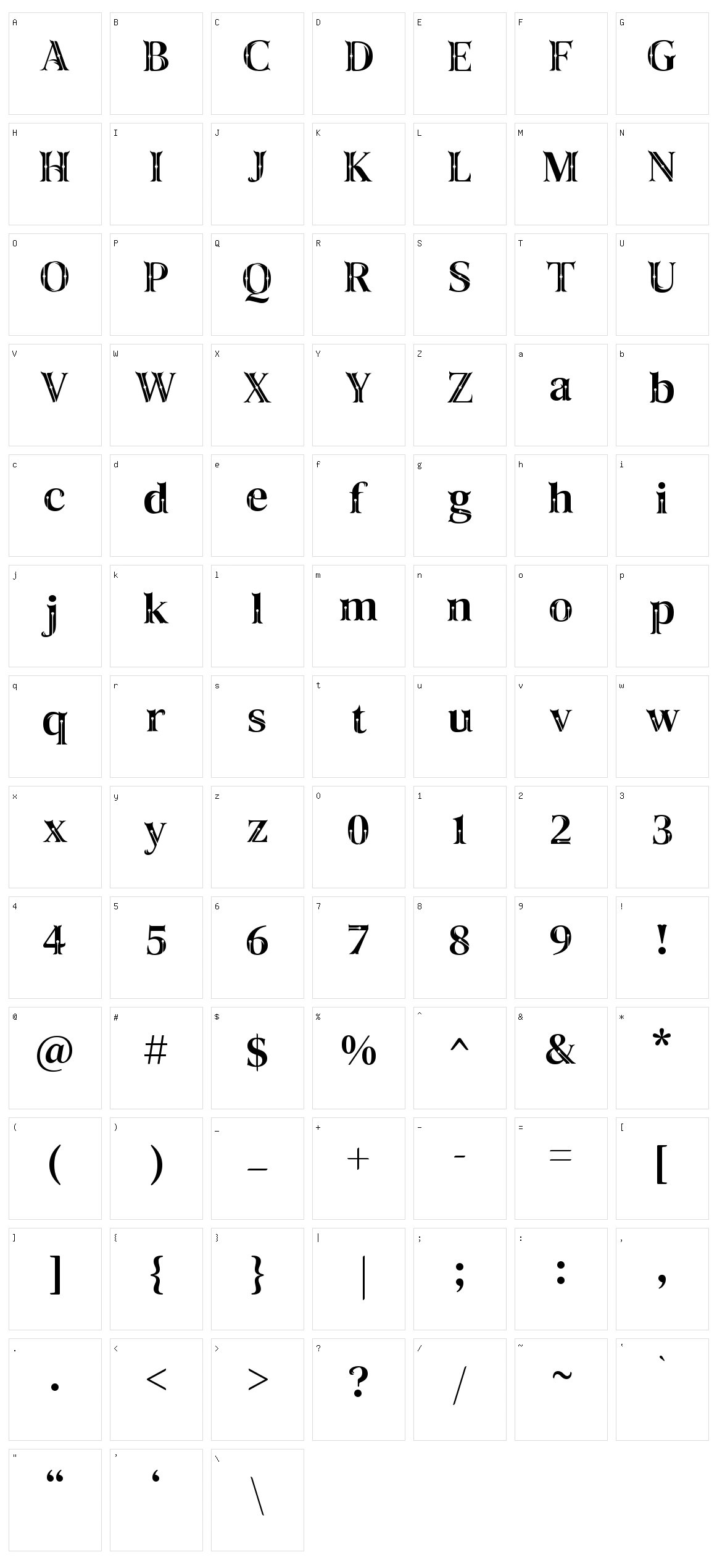
The free font Taiganja Type is carefully designed by Hardi Nugraha Tunggele, showcasing a thoughtful balance of creativity and usability and falls under the Decorative font style. When you download the ZIP file, it contains only 43.32 KB of font files, making it lightweight and quick to download. Please review the license details below to understand permitted usage and distribution rights. If license information is not available, we recommend using this font for personal projects only or contacting the author directly for commercial usage permissions.